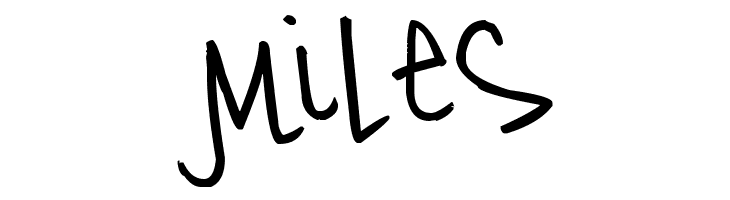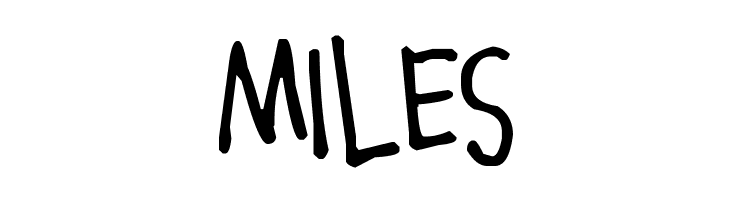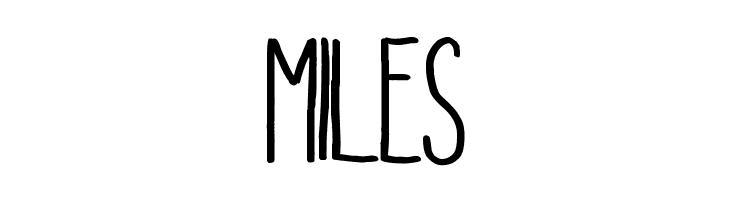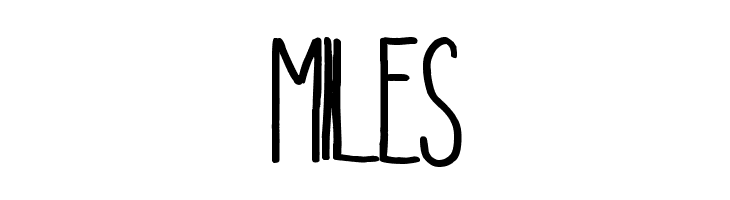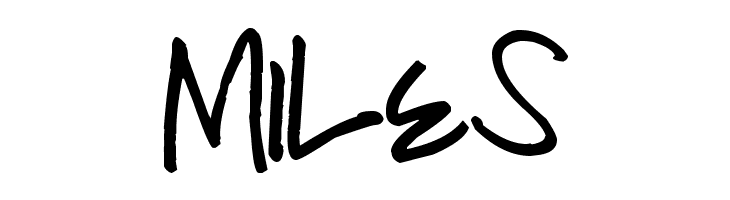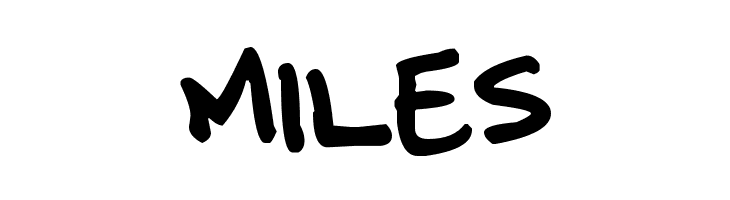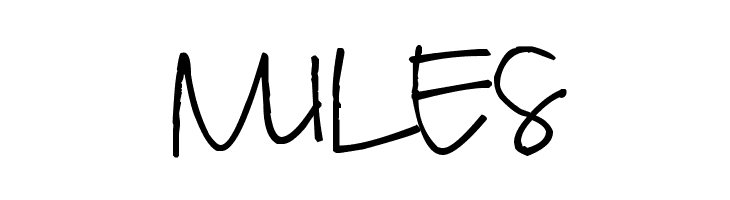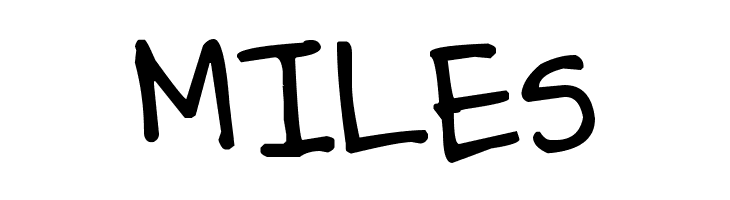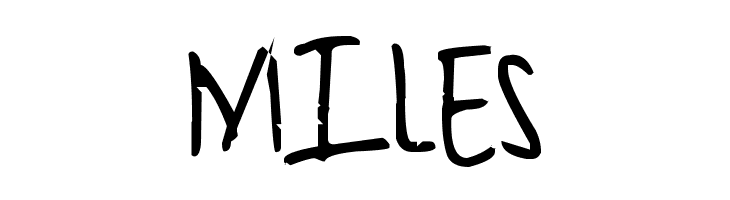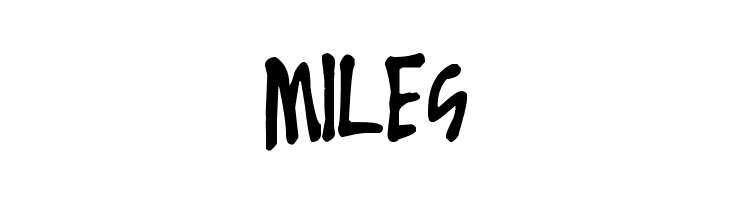
• Pea Melanie
A playful, casual handwritten font with irregular strokes and a friendly appearance.
• Pea Meli
A playful, handwritten font with a casual and friendly appearance.
• Pea Melissa
A casual, playful handwritten font with uneven strokes.
• Pea Michelle
A casual, handwritten font with a playful and informal style.
• Pea Mimi
A playful, casual handwritten font with uneven strokes and a friendly appearance.
• Pea Minna
A playful, casual handwritten font with fluid, irregular strokes.
• Pea Missy
A playful, casual handwritten font with a friendly and informal style.
• Pea Missy Cursive
A playful cursive font with flowing, interconnected letterforms.
• Pea Monica
A playful, casual handwritten font with irregular strokes.
• Pea Mystie
A playful, hand-drawn font with a whimsical and informal style.
• Pea Mystie Caps
A playful, handwritten font with tall, narrow letters and a whimsical style.
• Pea Mystie Unicase
A playful unicase font with a hand-drawn, whimsical style.
• Pea Nancy
A playful, casual handwritten font with bold, uneven strokes.
• Pea Neffer
A playful, handwritten font with a casual and informal style.
• Pea Nicole
A playful, handwritten font with bold, irregular strokes and a quirky, informal style.
• Pea Olson
A casual, handwritten font with fluid strokes and a playful style.
• Pea Prochazka
A casual, handwritten font with a playful and informal style.
• Pea Protani
A playful, handwritten font with bold strokes and a casual, creative vibe.
• Pea Rachael
A playful, bold handwritten font with a casual and friendly style.
• Pea Randa
A playful, casual handwritten font with smooth, flowing strokes.
• Pea Sara